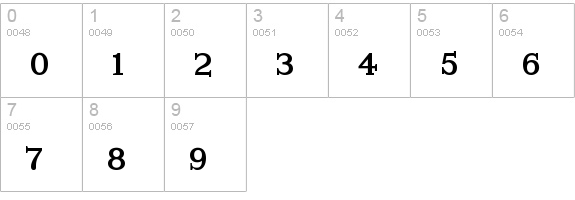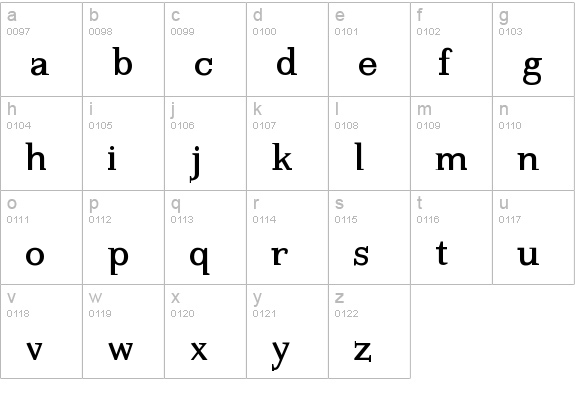
KleinsForgottenRoman Font Details
KleinsForgottenRoman font is a beautifully crafted typeface that brings a touch of elegance and nostalgia to any design project. Inspired by the classic Roman fonts of ancient times, this typeface captures the essence of traditional letterforms while adding a modern twist. With its delicate serifs and graceful curves, KleinsForgottenRoman exudes a sense of sophistication and timelessness. This font is perfect for a wide range of applications, from vintage-inspired branding and packaging to elegant wedding invitations and editorial layouts. Its versatility allows it to be used in both digital and print media, effortlessly enhancing the visual appeal of any design. One of the best features of KleinsForgottenRoman font is that it is freely available to download at FontsMarket.com. This means that designers and typographers can easily access and use this stunning typeface without any cost. Whether you are a professional designer or an amateur enthusiast, this font gives you the opportunity to create beautiful and impactful designs without breaking the bank. So, don't miss out on the opportunity to add KleinsForgottenRoman font to your collection. Visit FontsMarket.com today and download this incredible typeface for free. Elevate your designs with the timeless beauty and versatility of KleinsForgottenRoman.